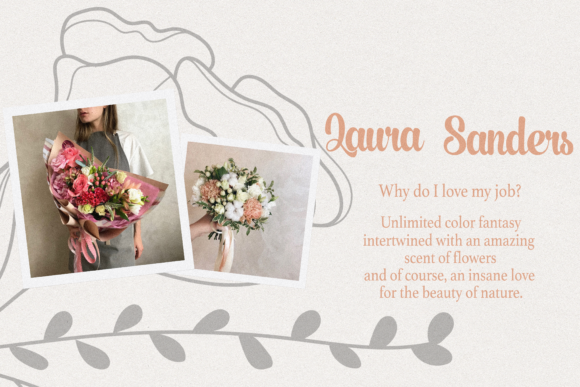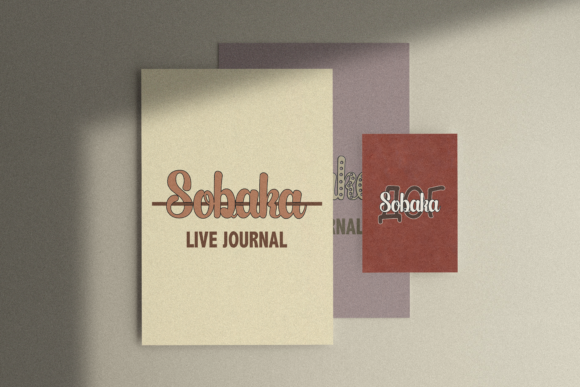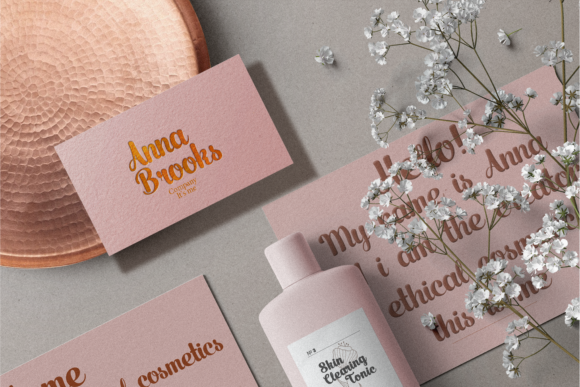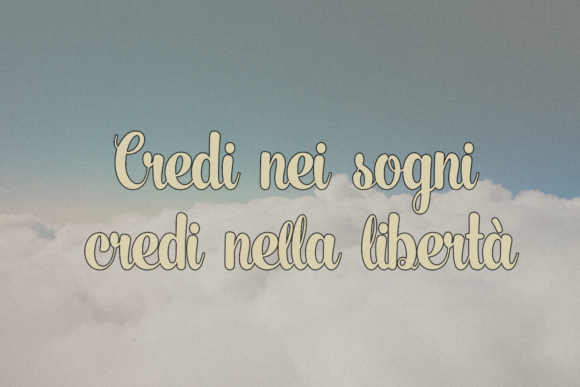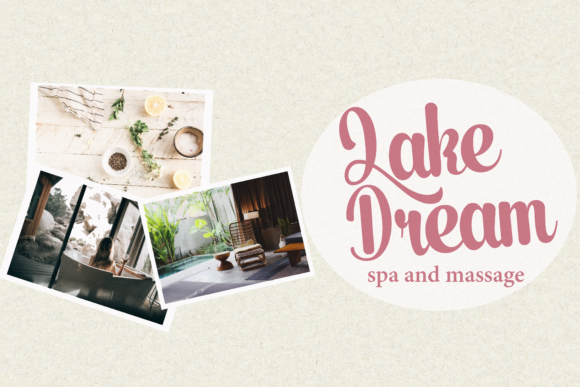
Lake Dream Font
About Lake Dream Font
Lake Dream is a script font that was made to stand out! Its glyphs are striking, elegant, and bold which makes it perfect for headlines, promotional material, merchandise and so much more!